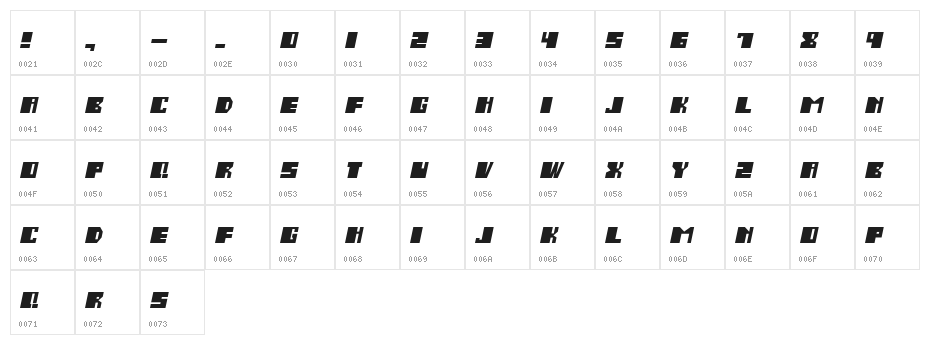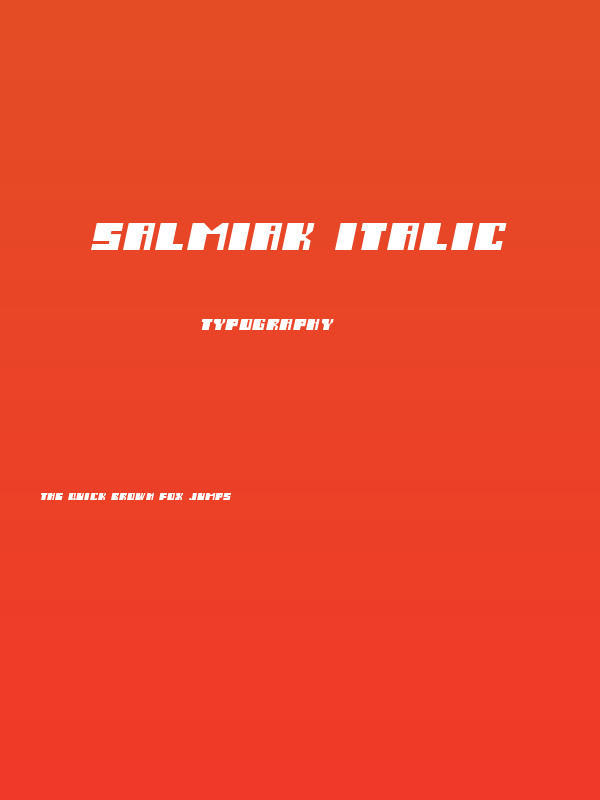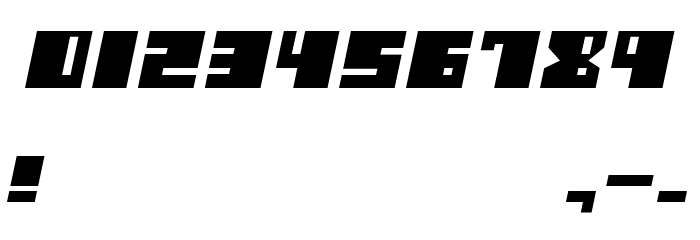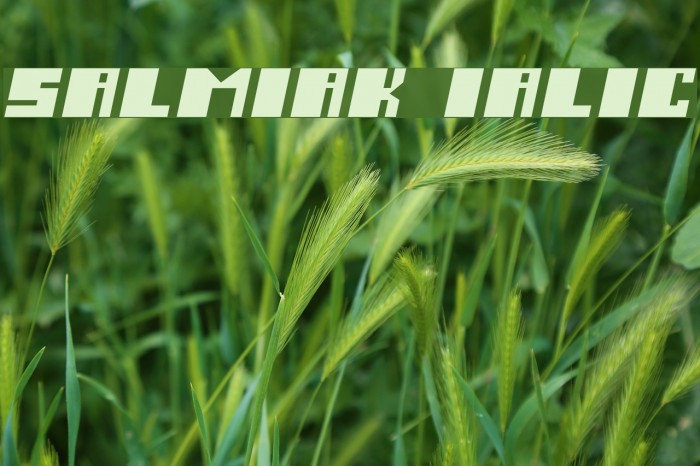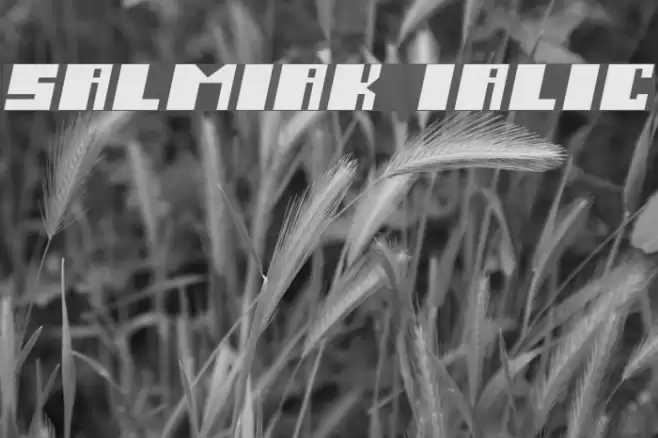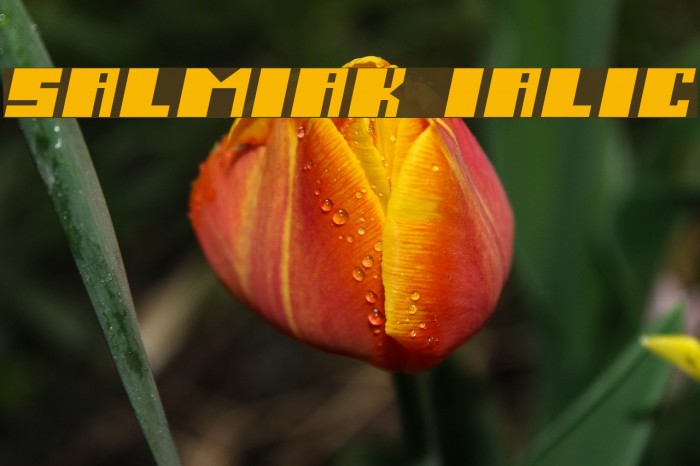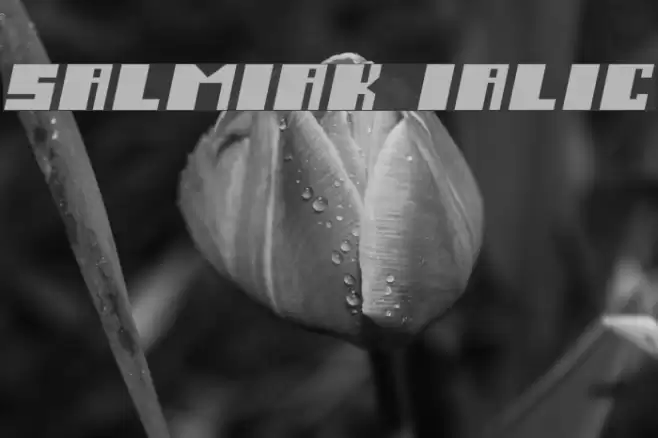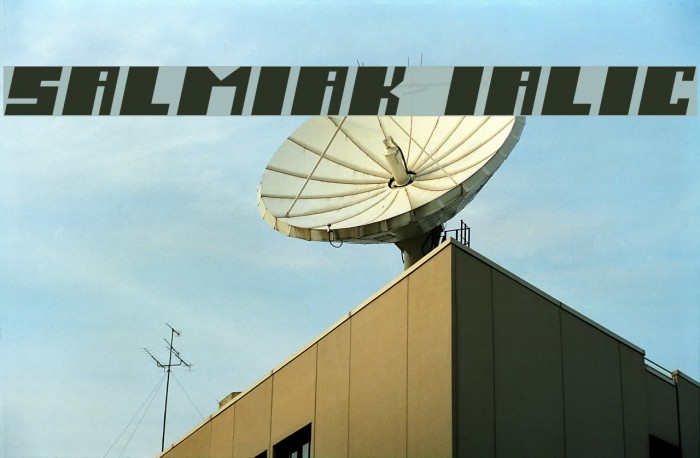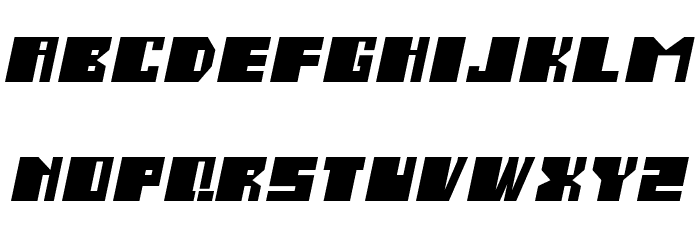
Salmiak Italic Font
Salmiak Italic Description
This font features a bold, geometric style with sharp angles and a distinct italic slant, giving it a dynamic and modern appearance. The characters are constructed with thick, uniform strokes that create a strong visual impact. The uppercase and lowercase letters maintain a consistent design, emphasizing a futuristic and edgy aesthetic. The numbers and special characters follow the same bold and angular style, ensuring uniformity across all elements. This font's unique design makes it stand out, suitable for projects that require a strong and assertive typeface.